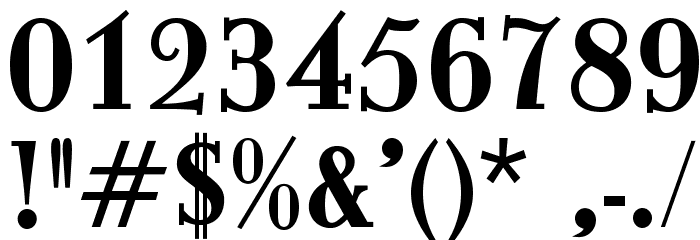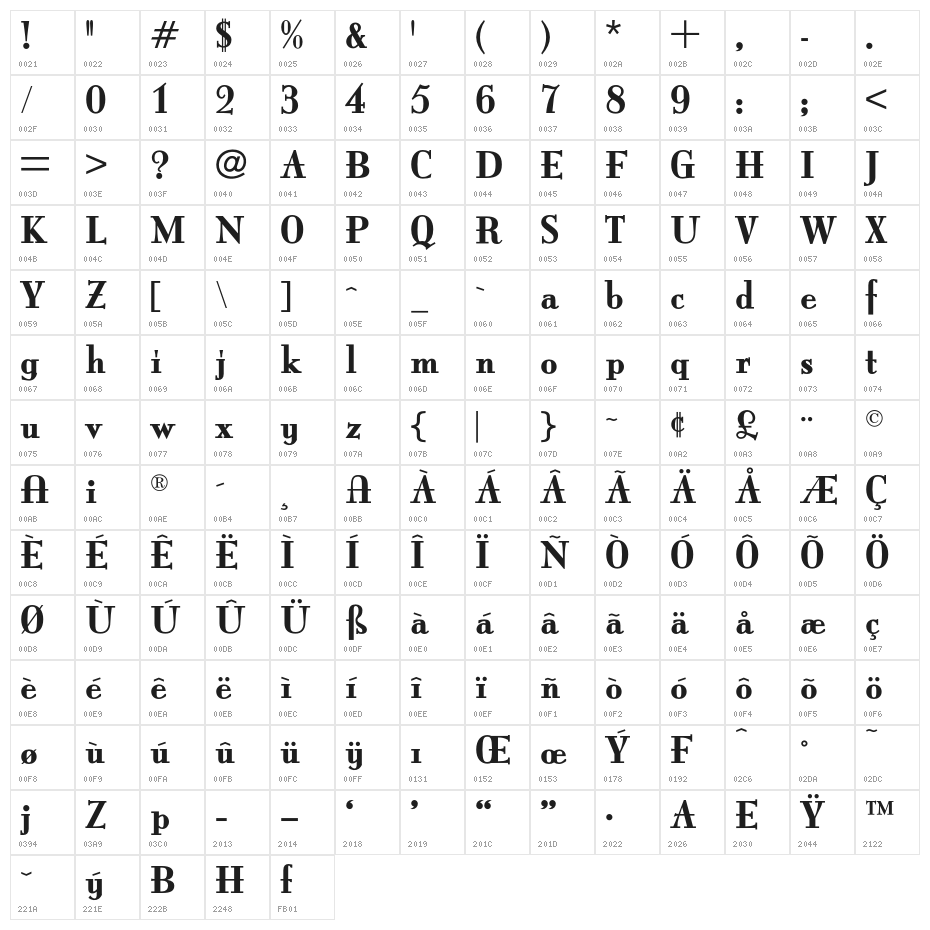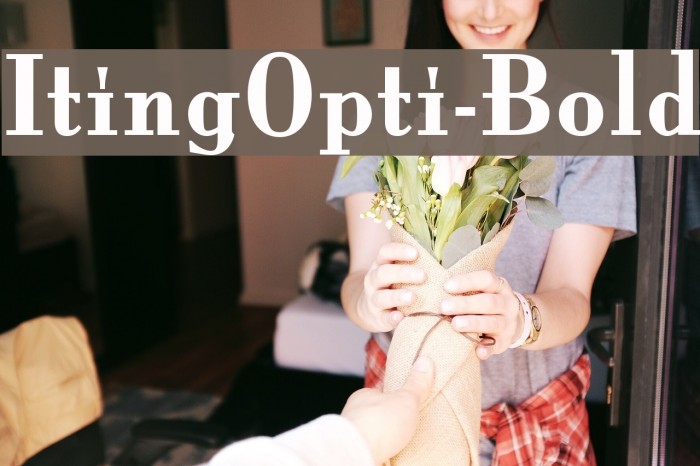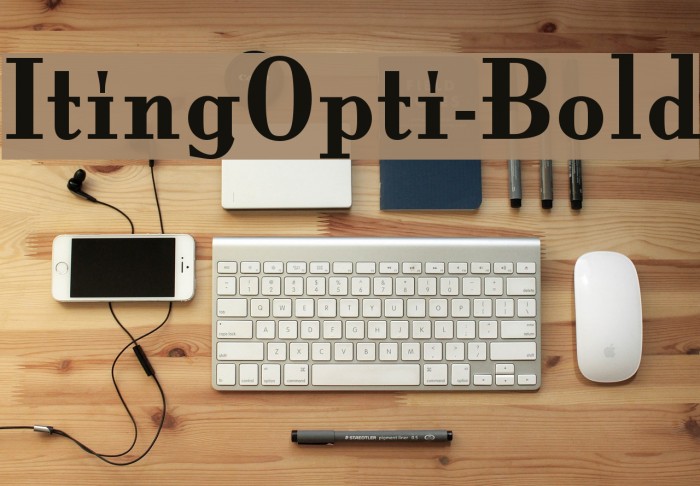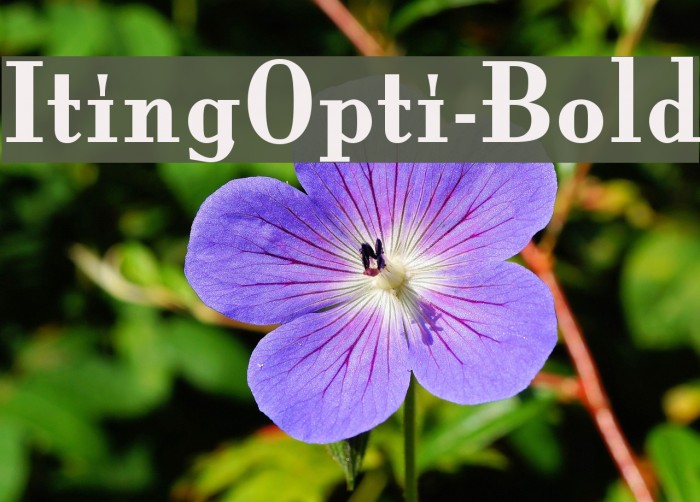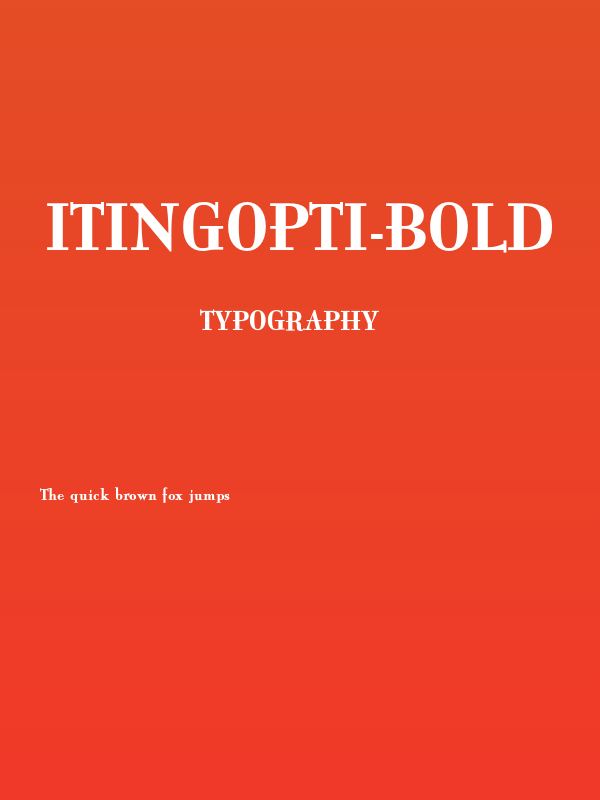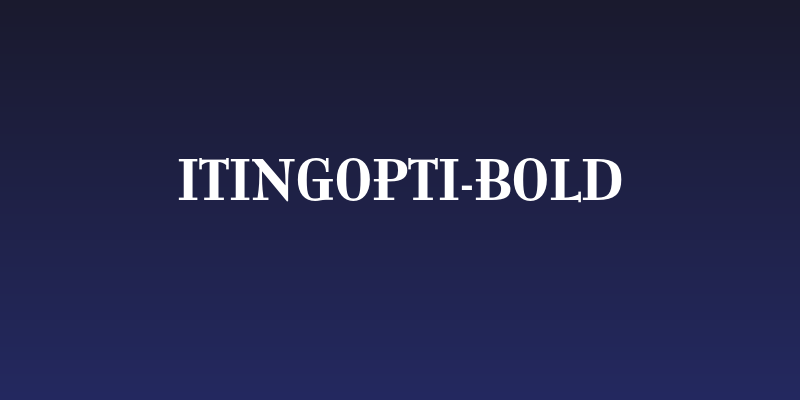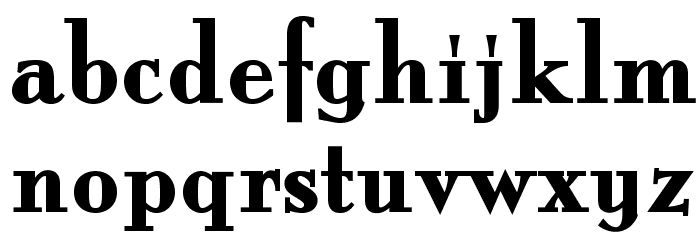
ItingOpti-Bold Font
ItingOpti-Bold Description
This font is a bold and striking serif typeface characterized by its strong, thick strokes and high contrast between thick and thin lines. The serifs are pronounced and angular, giving it a classic yet robust appearance. The uppercase letters are tall and commanding, while the lowercase letters maintain a balanced proportion, ensuring readability. The numerals are consistent with the bold style, making them stand out prominently. Special characters are designed with the same attention to detail, ensuring they integrate seamlessly with the rest of the typeface. This font is ideal for making a strong visual impact.
| Proposed Projects | Ideal for headlines, posters, branding, and any project requiring a strong visual impact. |